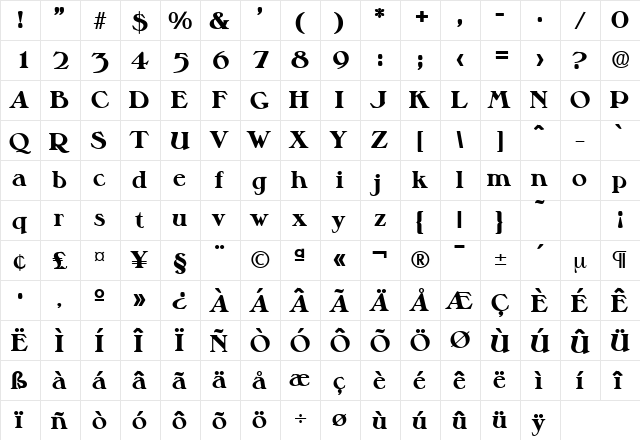
Melbourne-Serial-ExtraBold Regular
Design Context for Melbourne-Serial-ExtraBold Typeface
Melbourne-Serial-ExtraBold takes a measured approach to typography — its balanced proportions and neutral character make it a reliable workhorse for both digital and print work. The heavy weight commands attention and anchors typographic hierarchies.